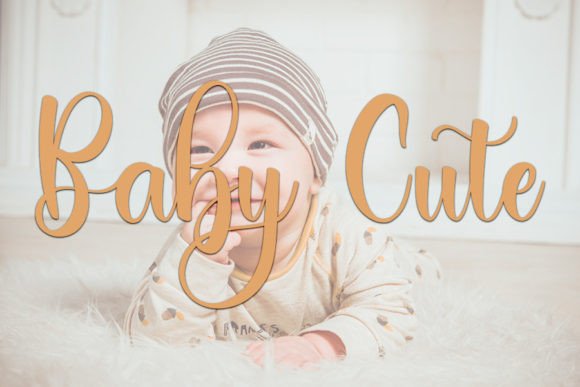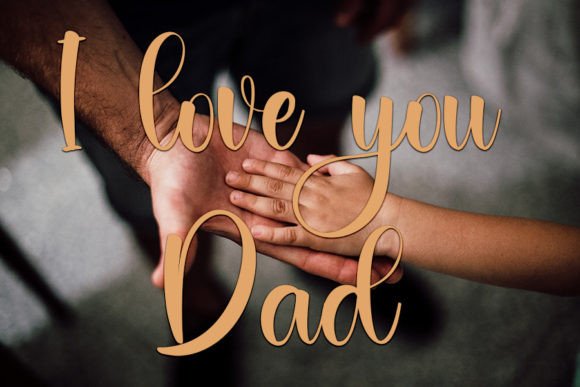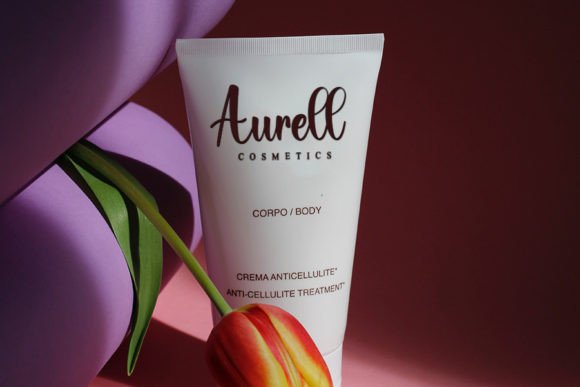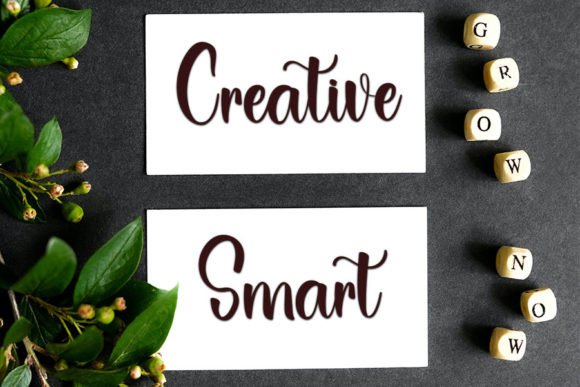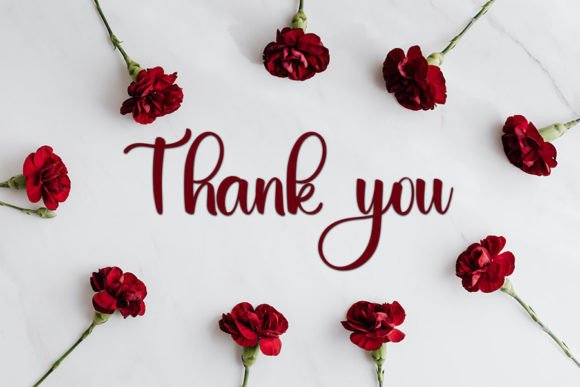
Introducing Always Remember Font: Elevate Your Designs with Elegance
Are you on the hunt for a font that adds a touch of sophistication and elegance to your designs? Look no further than the Always Remember font, a stunning handwritten font that is sure to capture your heart. With its unique blend of style and timelessness, this font is perfect for designers and crafters looking to create spectacular designs that stand out from the crowd.
The Charm of Always Remember Font
Always Remember is a neat and beautiful handwritten font that boasts an elegant touch, making it ideal for a wide range of projects. Whether you’re working on a logo, branding materials, invitations, or social media graphics, this font is sure to bring a level of sophistication and refinement to your designs. Its incredibly distinct and timeless style is sure to leave a lasting impression on your audience.
What Makes Always Remember Font Stand Out
- Unique Style: Always Remember font features a unique and distinctive style that sets it apart from other fonts. Its elegant touch and beautiful handwriting make it perfect for designs that require a personal touch.
- Timeless Appeal: Unlike trendy fonts that quickly go out of style, Always Remember font has a timeless appeal that ensures your designs will remain relevant for years to come.
- Versatility: This font is incredibly versatile and can be used for a wide range of projects, from logos and branding materials to invitations and social media graphics.
- Elegant Touch: The font’s elegant touch adds a level of sophistication to your designs, making them perfect for high-end brands and luxury products.
How to Use Always Remember Font in Your Designs
Using Always Remember font in your designs is easy and straightforward. Here are a few tips to get you started:
- Pair it with Other Fonts: Always Remember font pairs well with other fonts, making it easy to create stunning font combinations. Try pairing it with a clean sans-serif font for a modern look or with a serif font for a more traditional feel.
- Use it for Headings and Titles: The font’s elegant touch makes it perfect for headings and titles. Use it to create stunning headlines that grab attention and draw the reader in.
- Add a Personal Touch: Always Remember font is perfect for adding a personal touch to your designs. Use it to create custom illustrations, quotes, or phrases that showcase your brand’s personality.
Why Designers and Crafters Love Always Remember Font
Designers and crafters love Always Remember font for many reasons. Here are a few:
- Easy to Read: The font is easy to read, making it perfect for designs that require a high level of legibility.
- Highly Versatile: Always Remember font is highly versatile and can be used for a wide range of projects, from digital designs to print materials.
- Unique Style: The font’s unique style sets it apart from other fonts, making it perfect for designers and crafters who want to create designs that stand out from the crowd.
In conclusion, Always Remember font is a stunning handwritten font that is sure to elevate your designs with its elegance and sophistication. With its unique style, timeless appeal, and versatility, this font is perfect for designers and crafters looking to create spectacular designs that leave a lasting impression. Whether you’re working on a logo, branding materials, or social media graphics, Always Remember font is sure to become your go-to font for all your design needs.